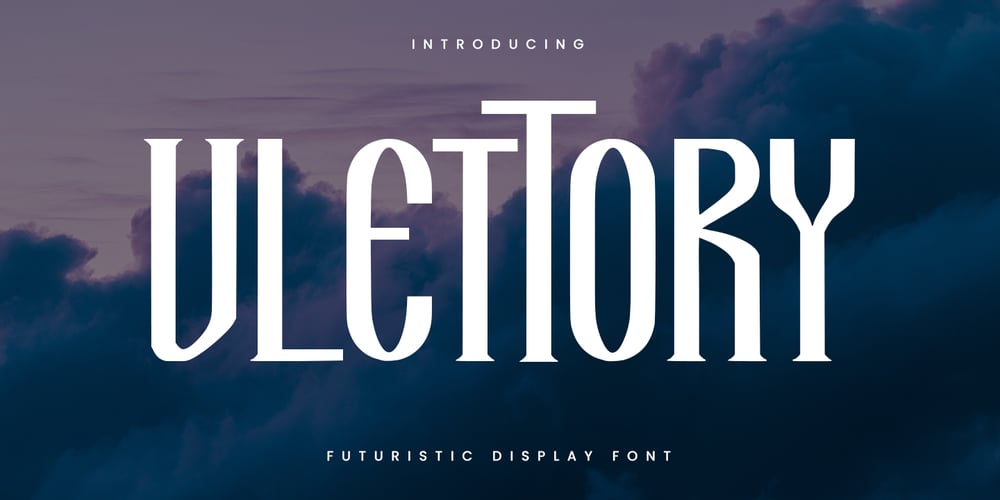
MC Vlettory Font Family was designed by Gilang Maulana and published by Maulana Creative. MC Vlettory contains 1 styles and family package options. Vlettory futuristic display font is a handmade Modern Victorian handlettering, which is combining modern and classic typography with some awesome alternates. This font is good for logo design, Social media, Movie Titles, Books Titles, a short text even a long text letter and good for your secondary text font with script or signature typeface. Make a stunning work with Vlettory futuristic display font.Thanks for use this font.Maulana Creative.